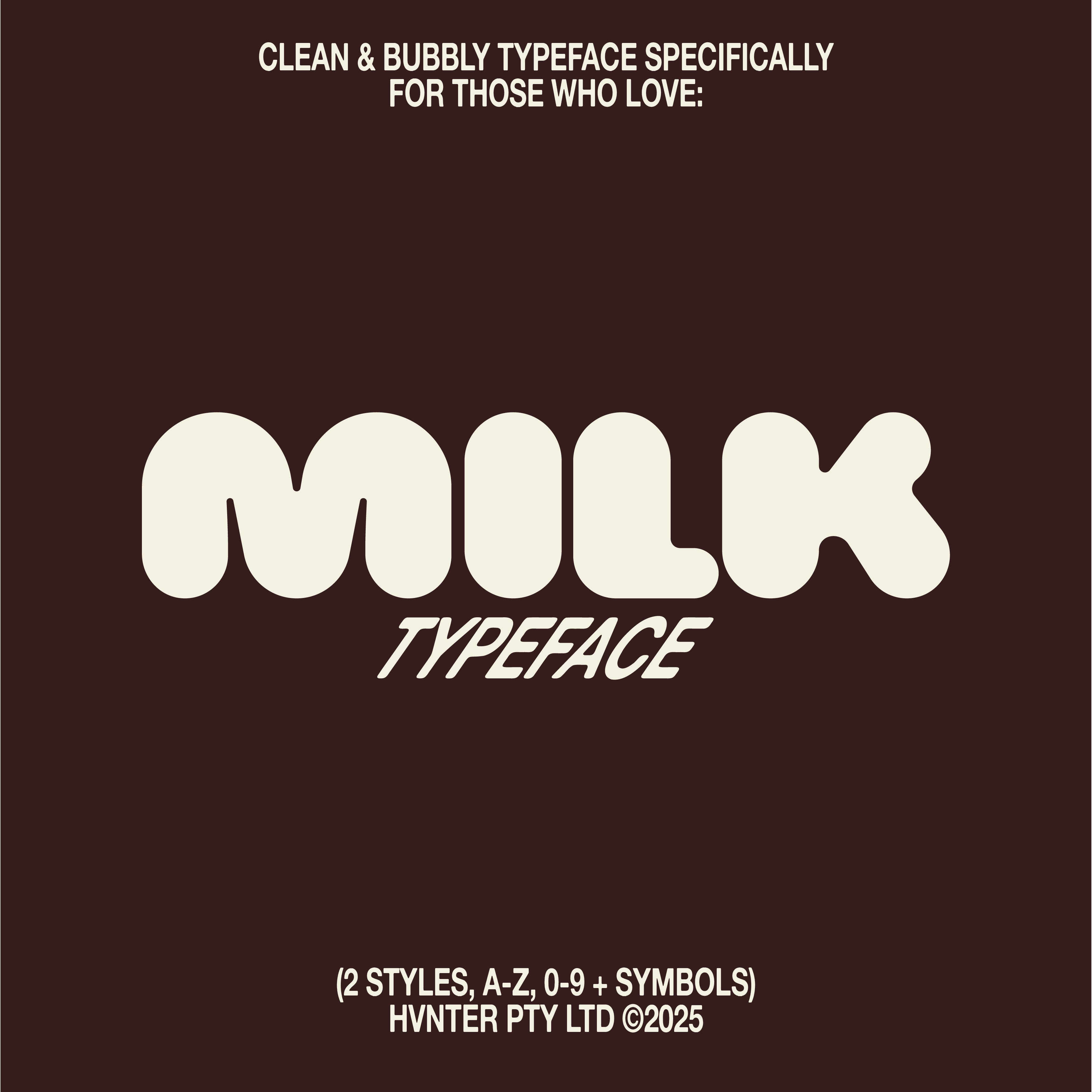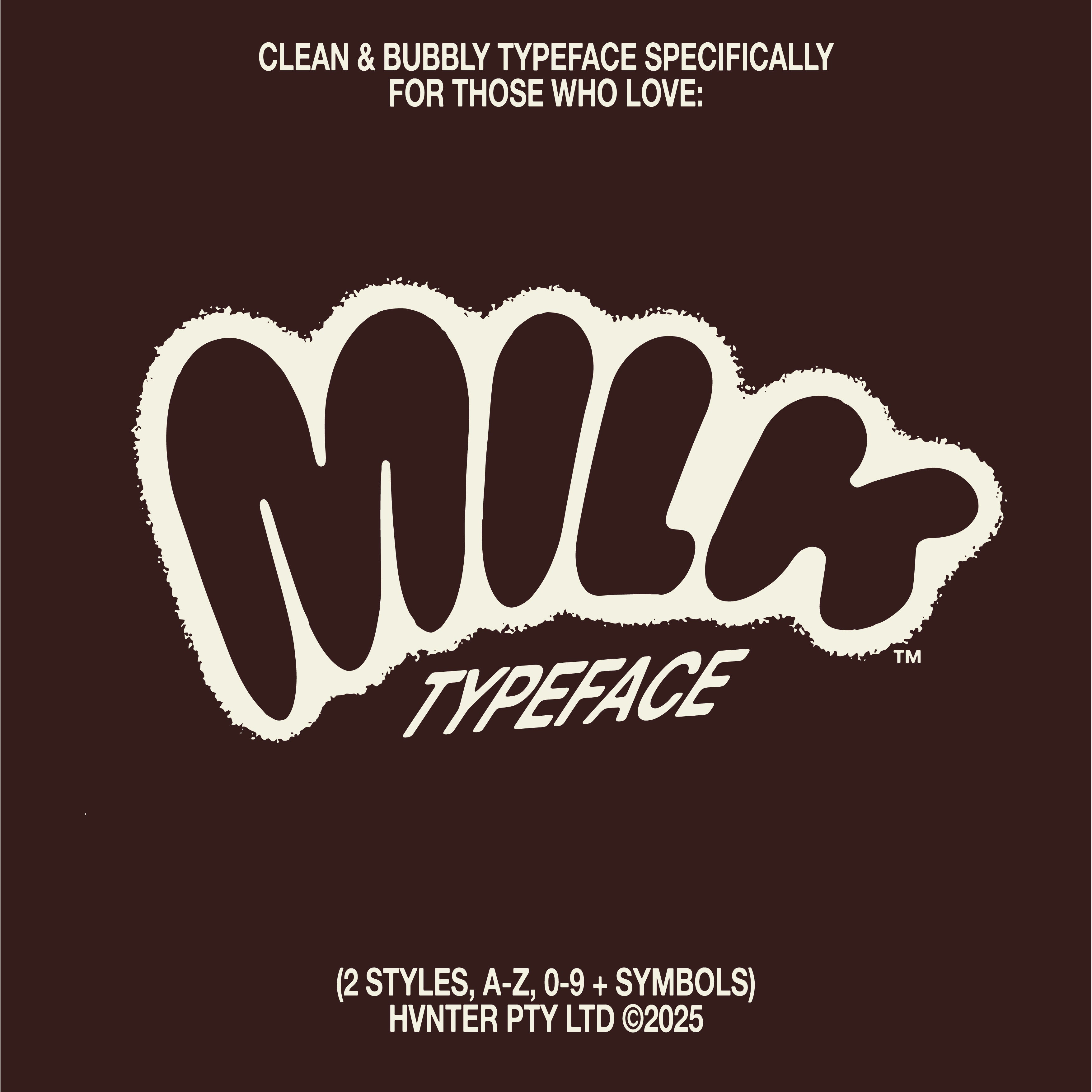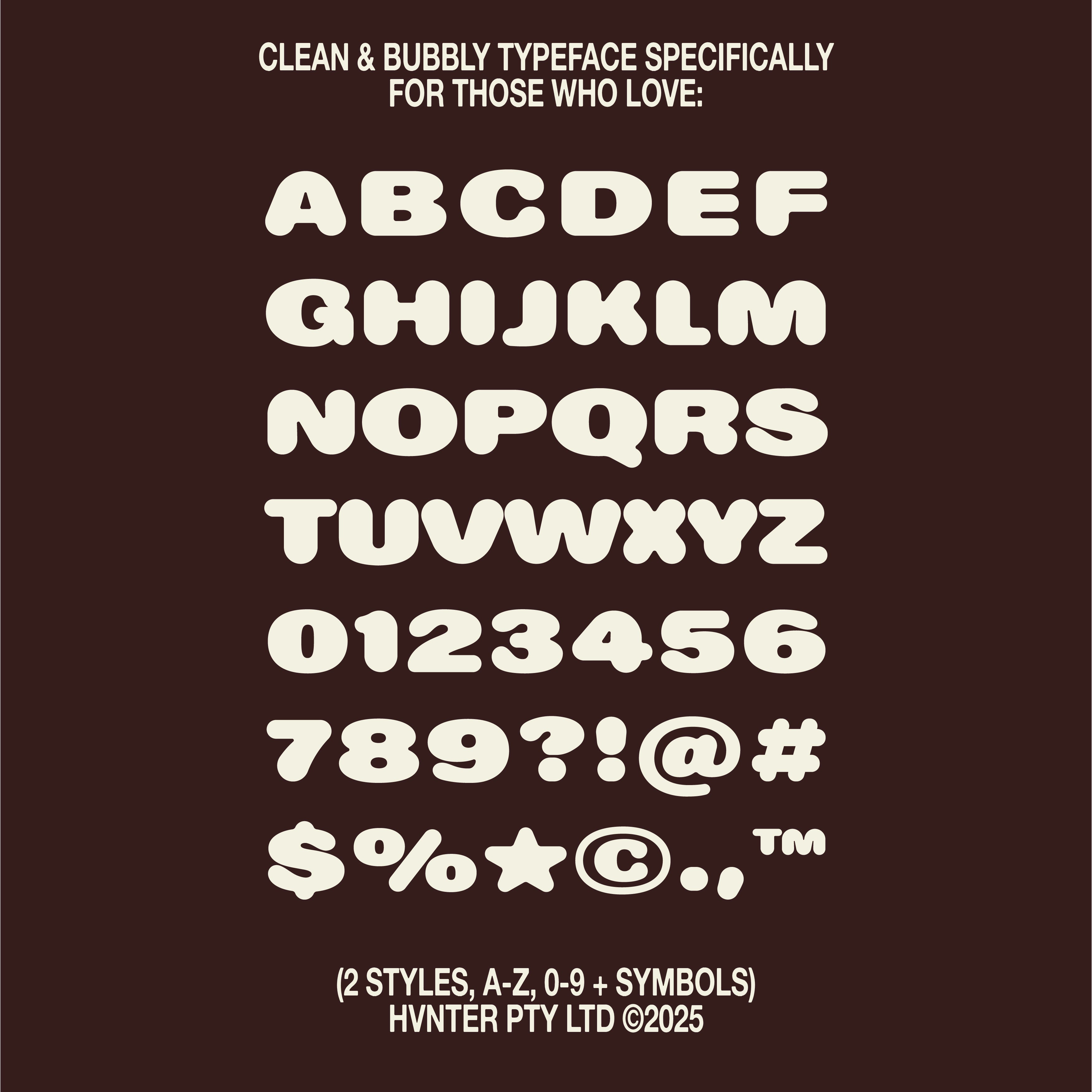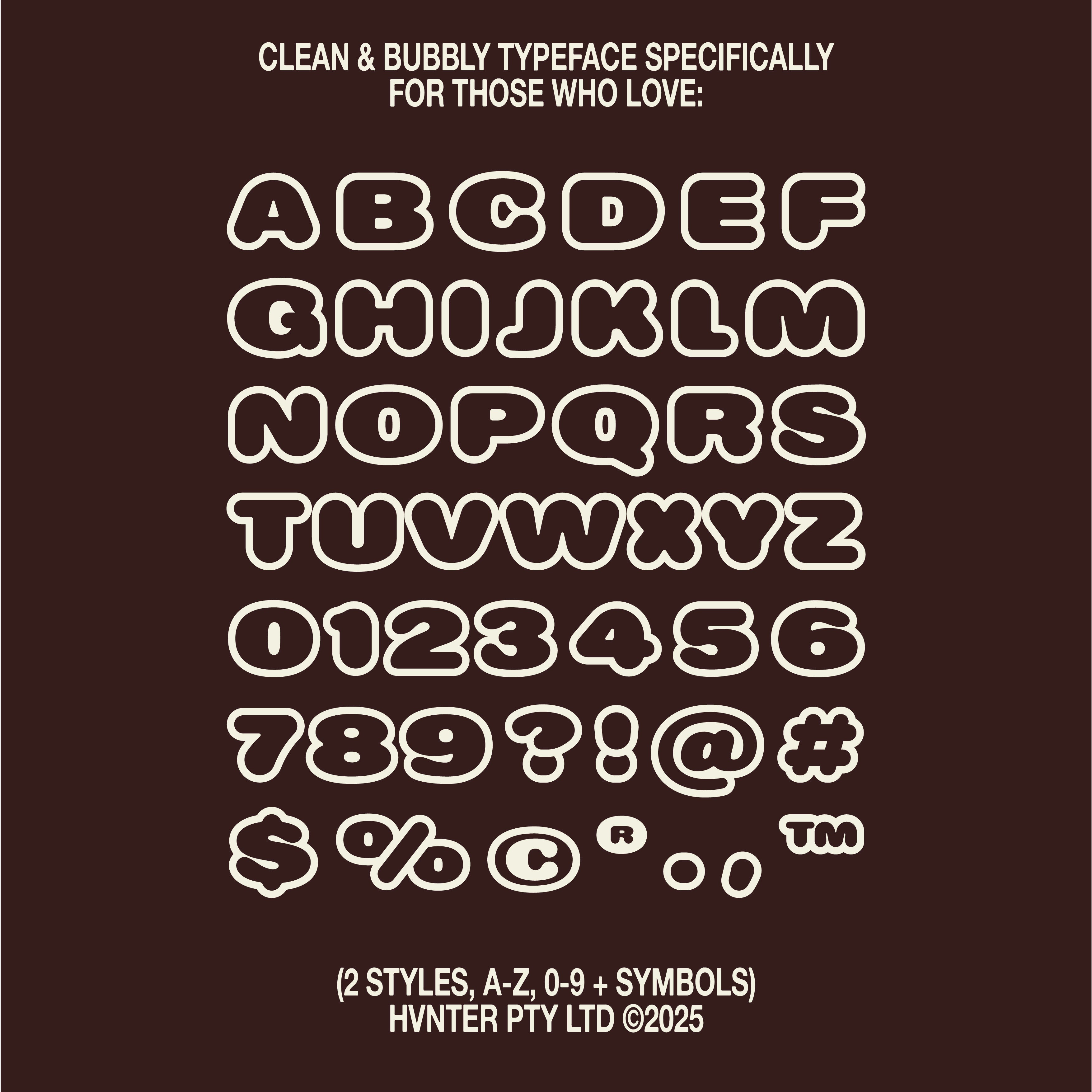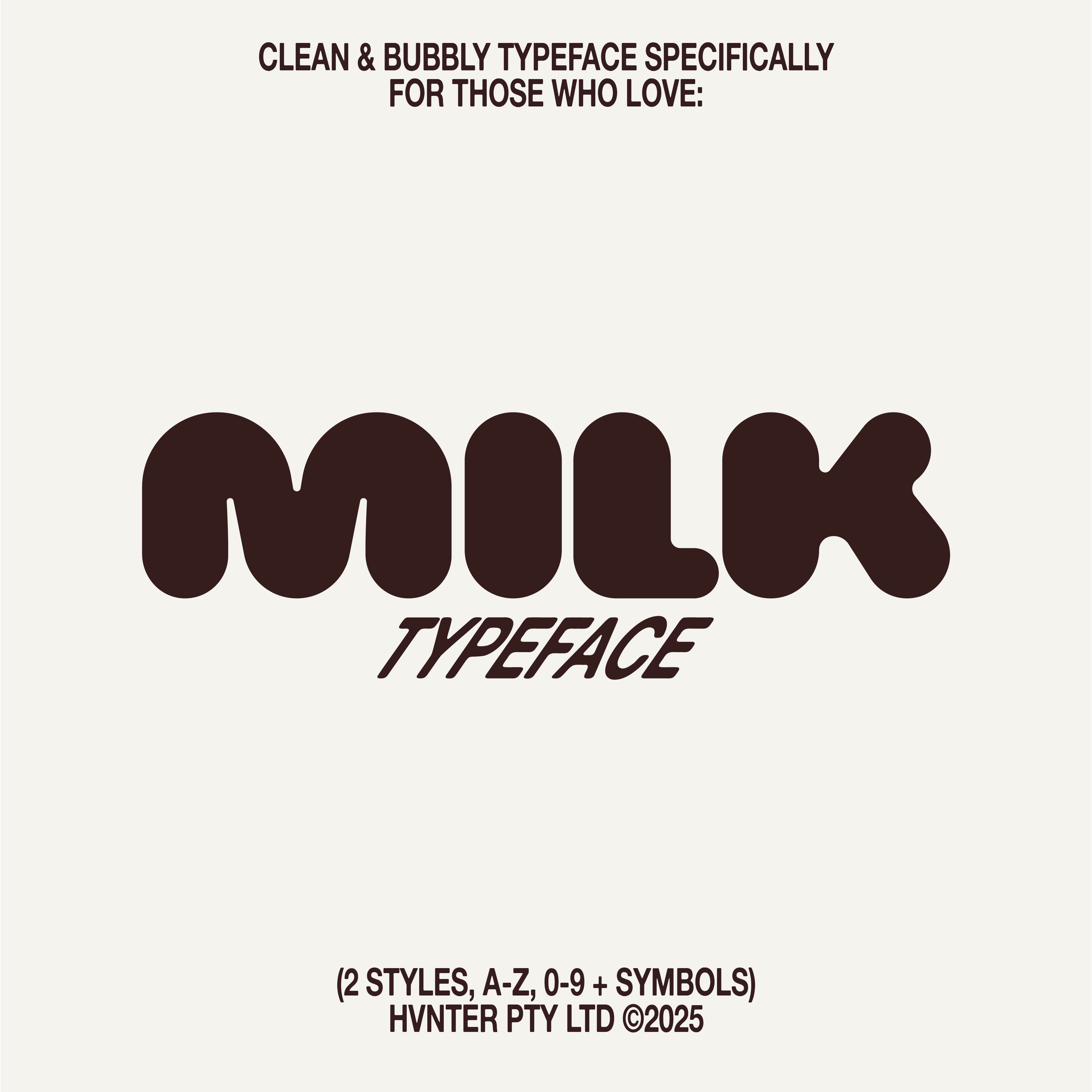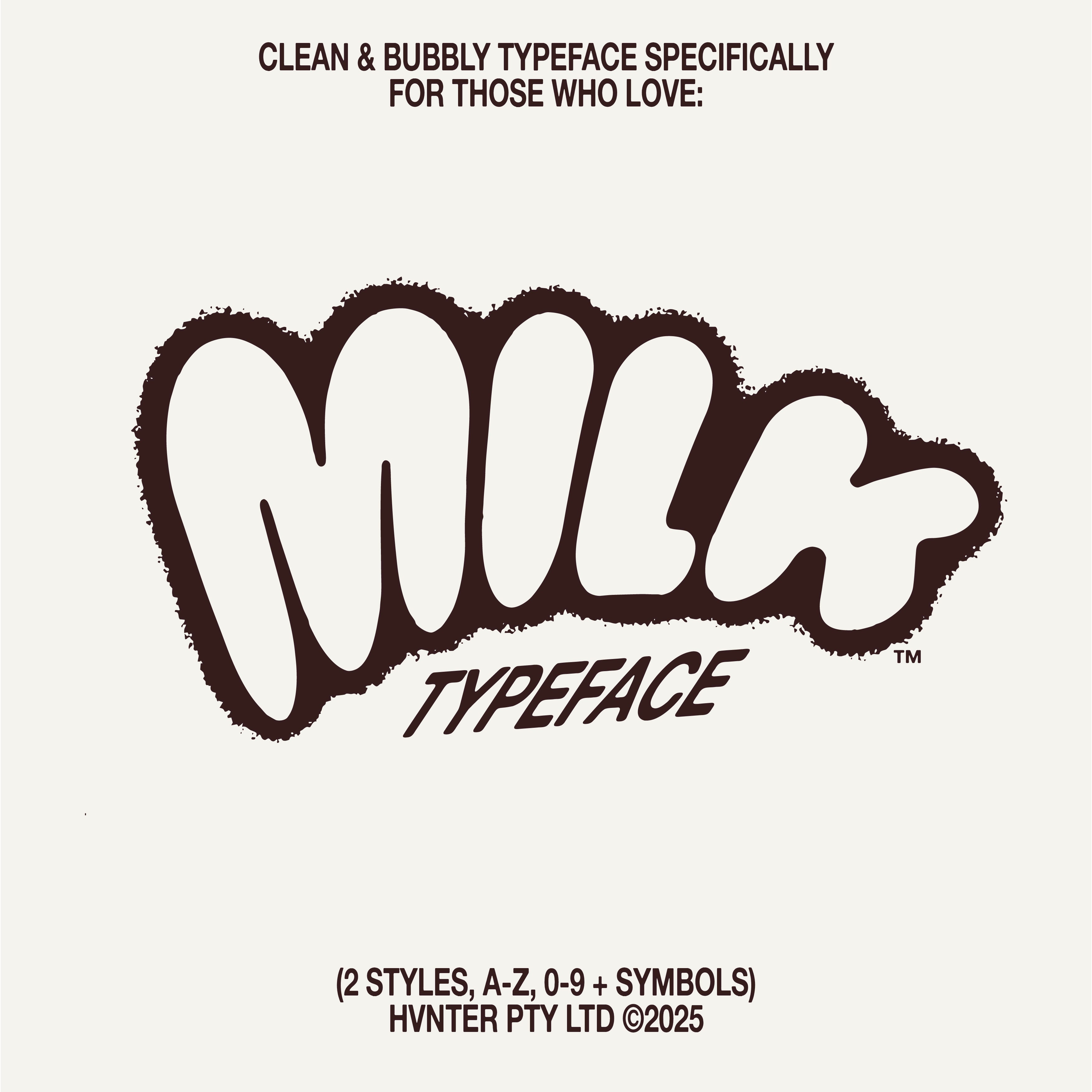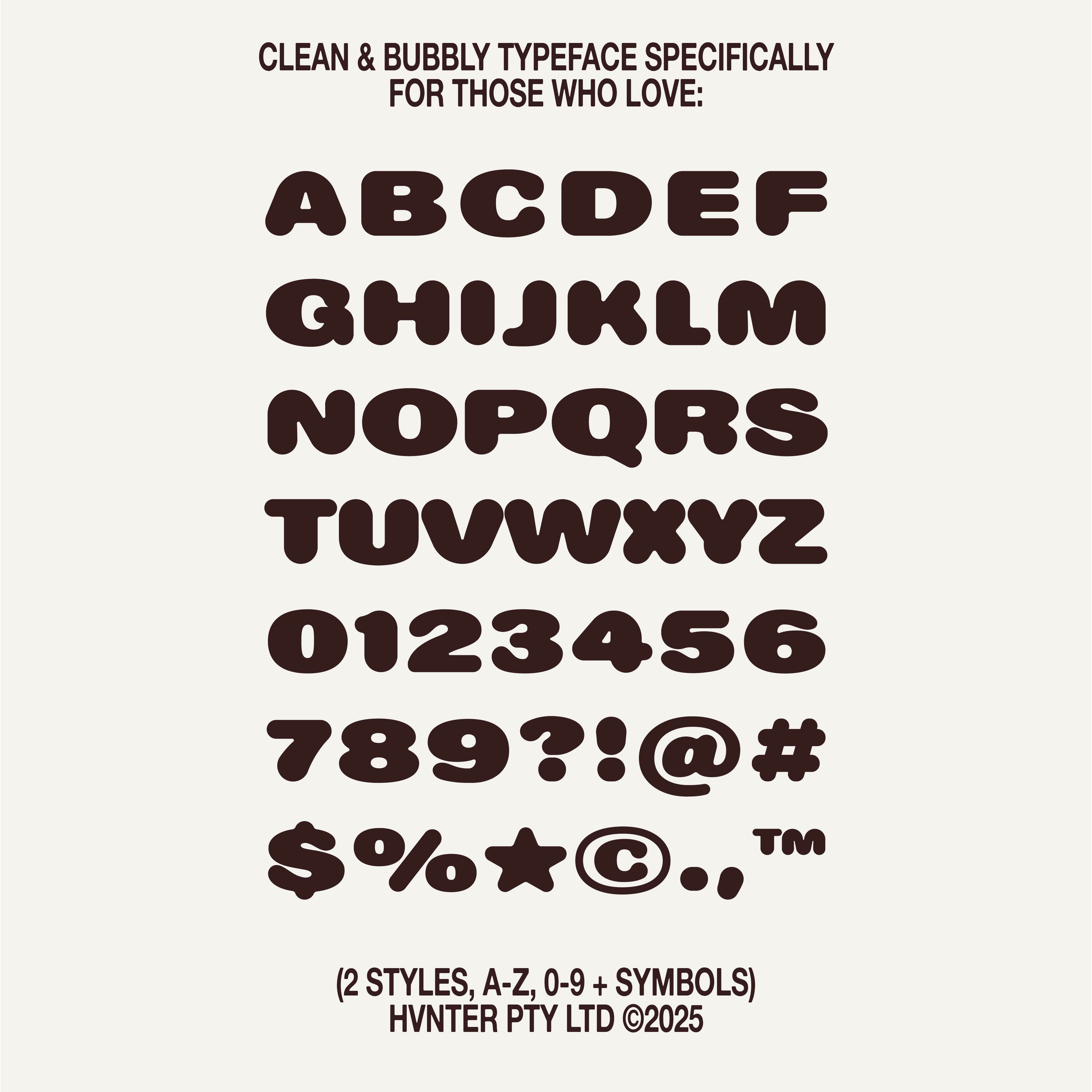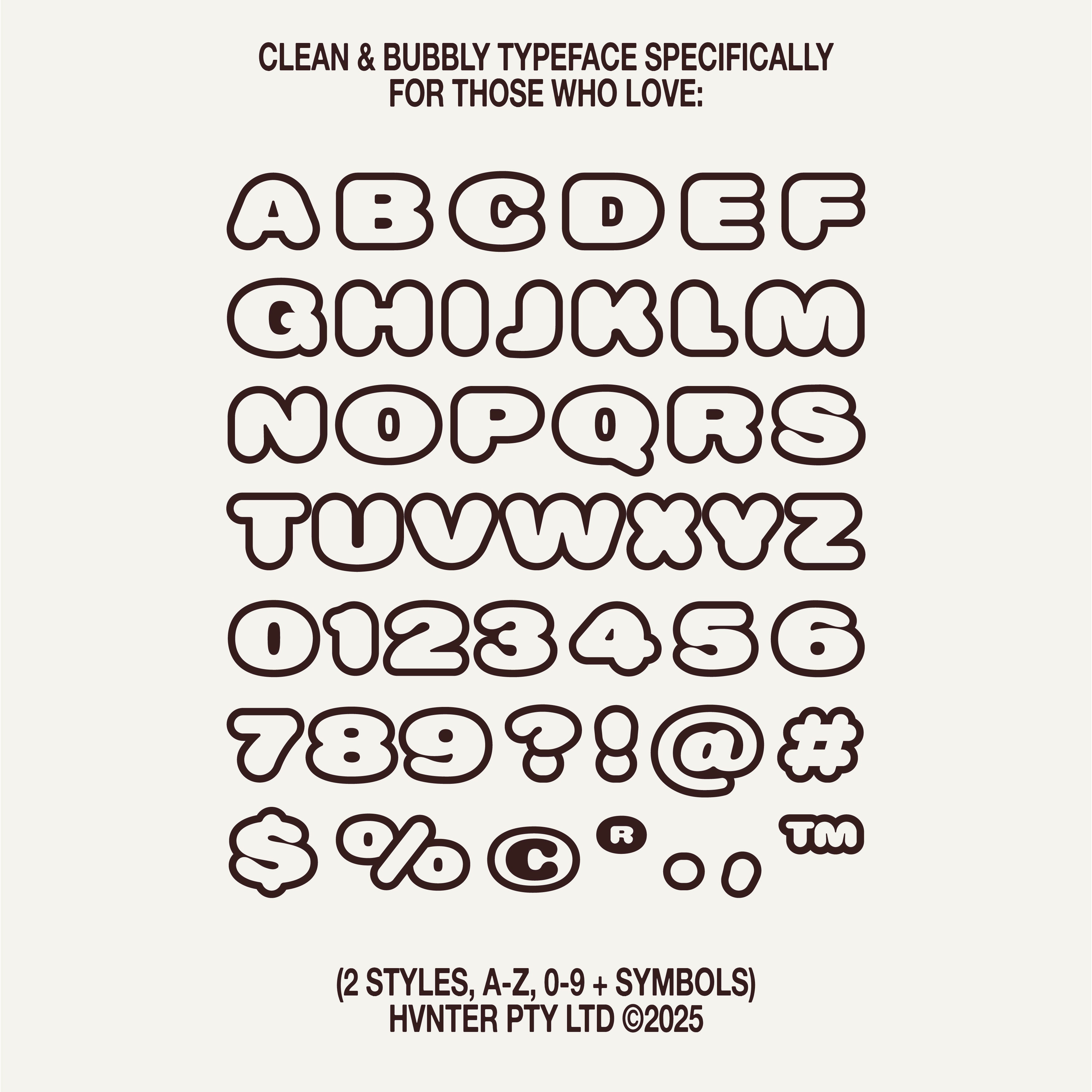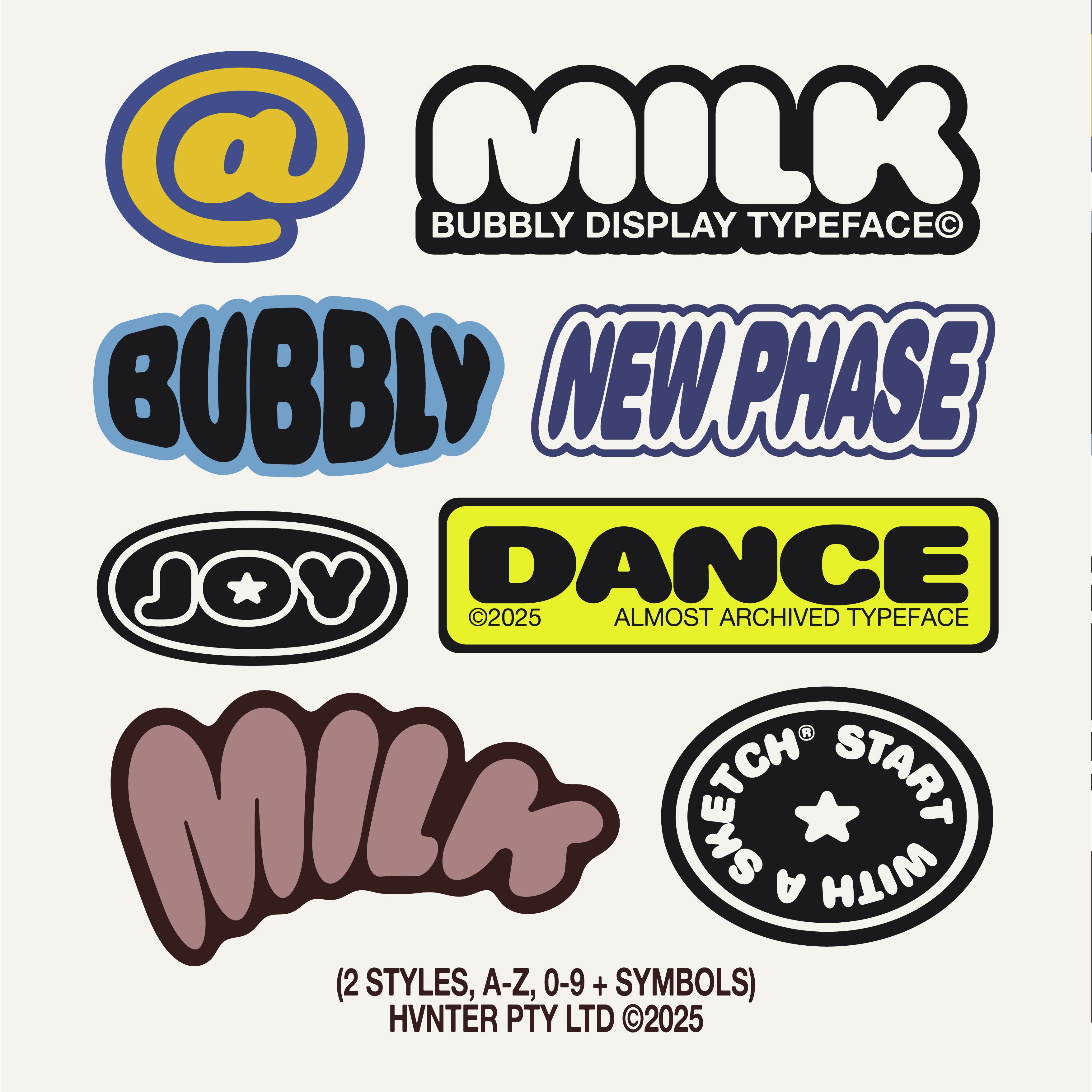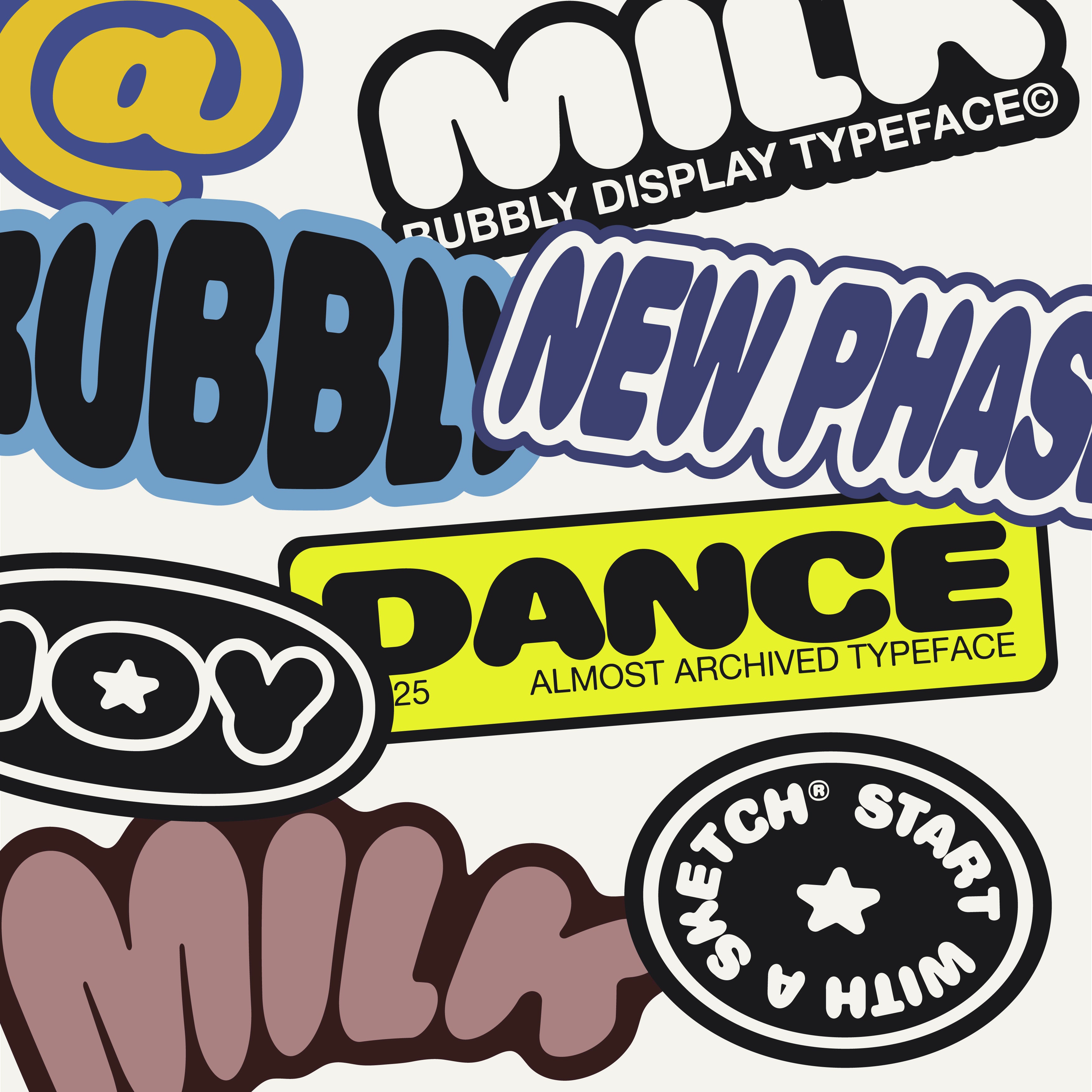
Milk Typeface
Milk Typeface is a versatile font that includes uppercase and lowercase letters, numbers, symbols, and glyphs. It features a soft and cute design, suitable for various styles, including bubble and retro aesthetics.
Ideal for playful and retro-inspired graphic design projects. Perfect for posters, branding, social media graphics, and merchandise, ensuring a unique and eye-catching visual appeal.